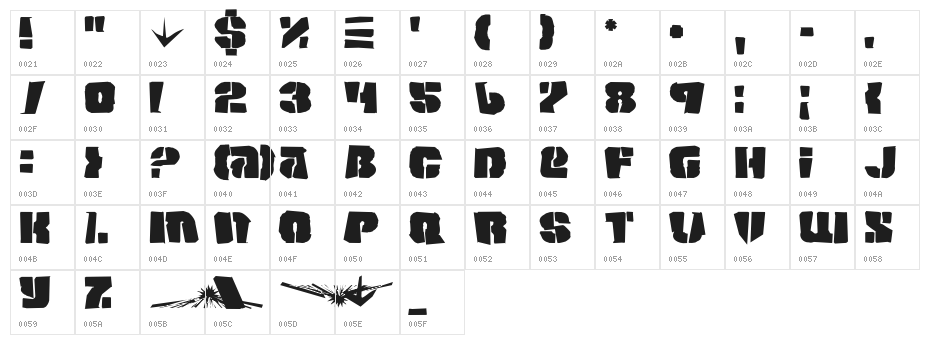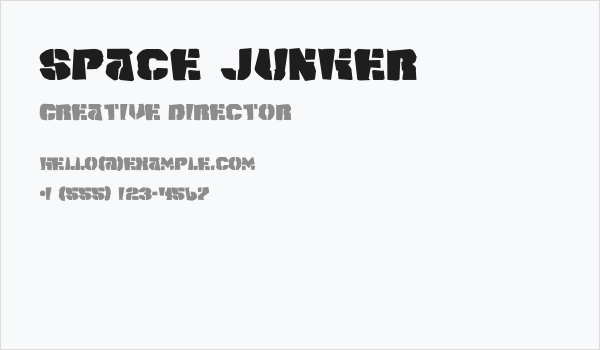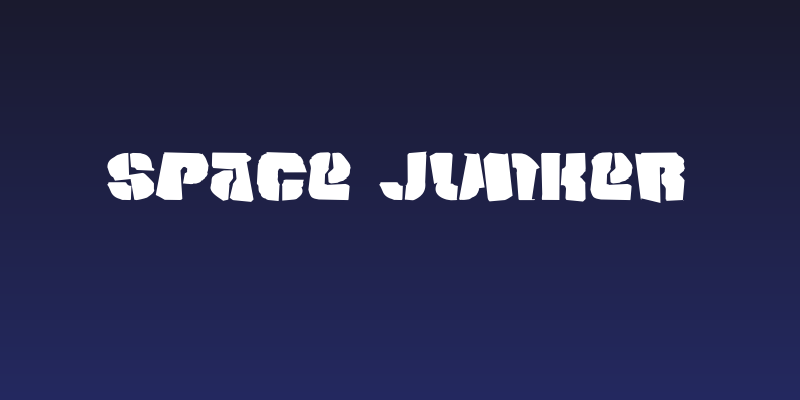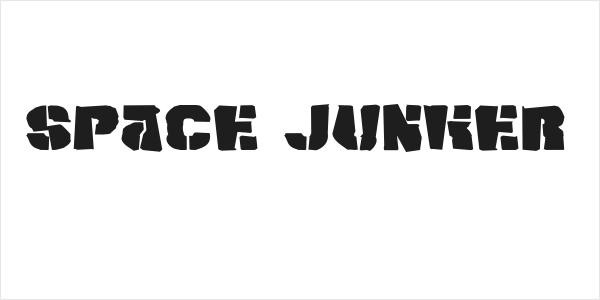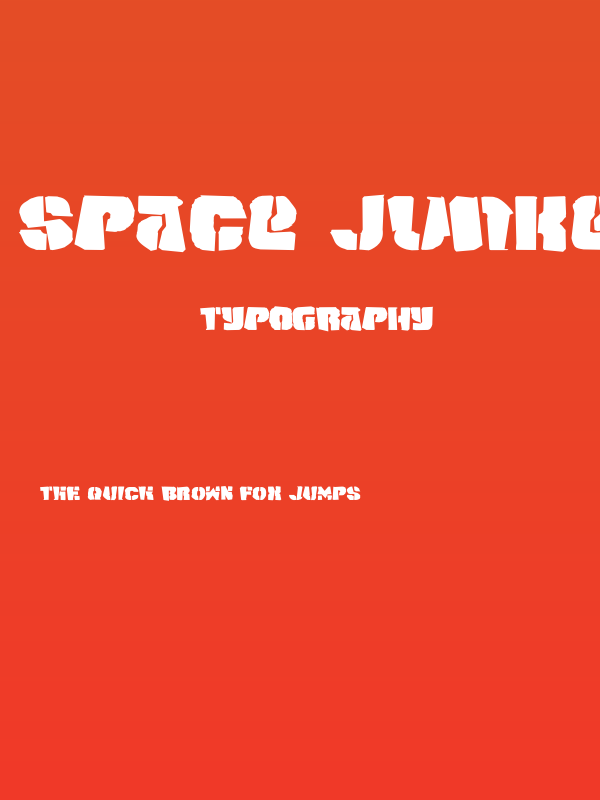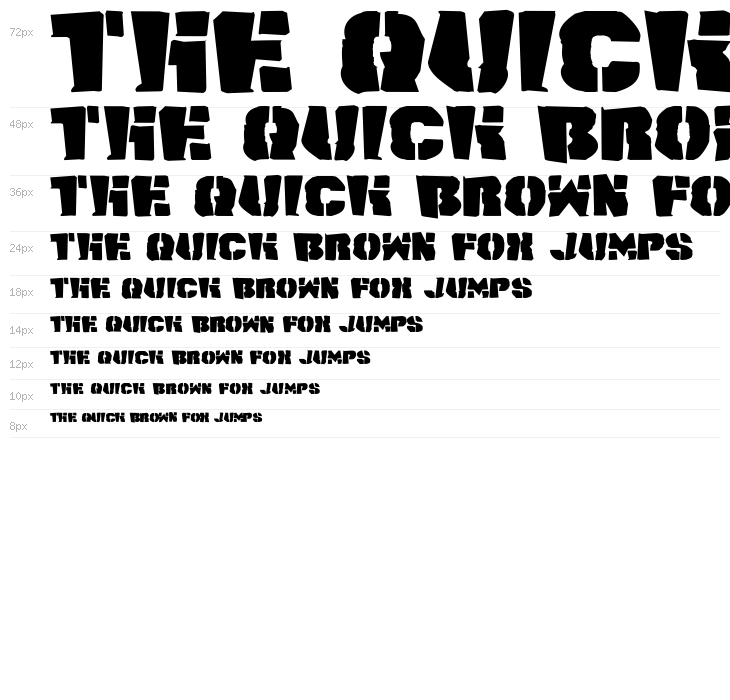
Space Junker Font
Space Junker Description
This font features a bold, fragmented style that gives it a rugged, industrial appearance. The characters are heavily stylized with irregular, jagged edges that create a sense of movement and chaos. The uppercase and lowercase letters maintain a consistent weight, contributing to a cohesive look despite the disruptive design. Numbers and special characters follow the same aesthetic, ensuring uniformity across all glyphs. This font's unique design is reminiscent of a futuristic or dystopian theme, making it ideal for projects that require a strong visual impact.
| Overall Style | Futuristic, Industrial |
| Proposed Projects | Ideal for sci-fi posters, video game titles, or any project needing a futuristic, edgy look. |